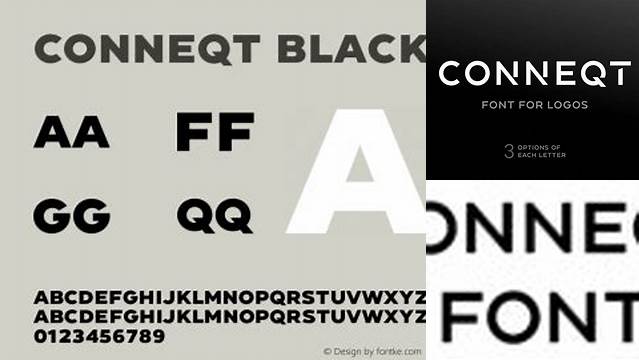
Hey there, font fanatics! Are you ready to jazz up your designs with a sleek and modern typeface? Well, you're in luck! We're diving deep into the world of conneqt black font free download ttf. This guide will walk you through everything you need to know about this awesome font, from where to snag it for free to how to use it like a pro. Get ready to transform your projects with the power of typography!
Conneqt Black Font: Unleashing the Power of a Bold Design
Conneqt Black font free download ttf is more than just a set of letters; it's a statement. Its bold and clean design makes it perfect for grabbing attention and conveying a sense of strength and sophistication. Whether you're crafting a logo, designing a website, or creating stunning social media graphics, Conneqt Black can elevate your work to the next level. The versatility of this font is truly remarkable. You can use it in a variety of contexts, from headings and titles to body text and call-to-actions. This adaptability makes it a go-to choice for designers and creatives looking for a font that can do it all. The font's ability to stand out without being overly complicated is a key reason for its popularity. It strikes the perfect balance between readability and visual appeal, ensuring your message is both clear and memorable. The carefully crafted letterforms and the overall aesthetic of the font make it an excellent choice for projects where impact and clarity are paramount. Imagine a powerful tagline or a striking headline that immediately captures the viewer's attention – Conneqt Black is designed to do just that. It's a tool that empowers designers to communicate effectively and leave a lasting impression.
When you choose conneqt black font free download ttf, you're not just choosing a font; you're choosing a visual identity that reflects modernity and confidence. It seamlessly integrates into various design styles, be it minimalist, contemporary, or even more avant-garde. The font's inherent strength allows it to hold its own, even in complex designs, while its clear lines ensure easy readability. Designers are increasingly turning to fonts like Conneqt Black to communicate effectively in today's fast-paced digital environment. The simplicity and boldness of the font are perfectly aligned with modern design principles, which emphasize clarity and visual impact. The use of conneqt black font free download ttf can significantly enhance the professionalism of your work. It sends a message that you're attentive to detail and value a modern aesthetic. Moreover, it gives your projects a distinctive edge, setting them apart from the competition. From posters and flyers to websites and apps, this font has proven its versatility and adaptability across multiple platforms and applications.
This font is a game-changer for anyone looking to make a statement with their designs. Its inherent visual appeal and modern aesthetic offer an immediate boost to any project. For marketers, the bold nature of the font is an ideal choice for headlines, ensuring they capture attention. For web designers, it offers excellent readability, ensuring that the crucial content isn't lost. Even graphic designers will find it a strong ally, as it easily merges into different design styles, from minimalistic to innovative. The fact that it's a free download makes it accessible to a broader range of users, from hobbyists to small businesses. This accessibility democratizes design, giving more people the chance to experiment with and enhance their visual communication. Choosing this font isn't just a stylistic choice; it's a strategic move that amplifies the impact and effectiveness of your projects.